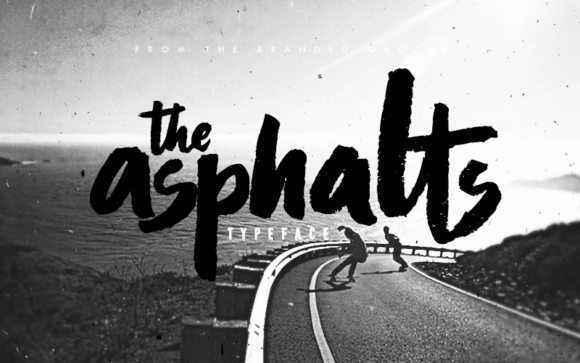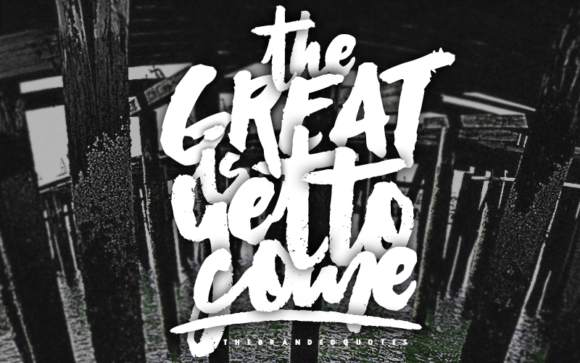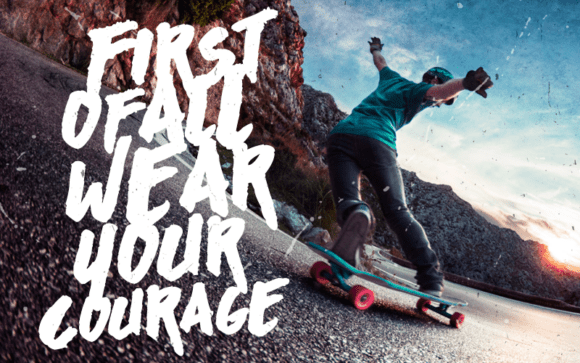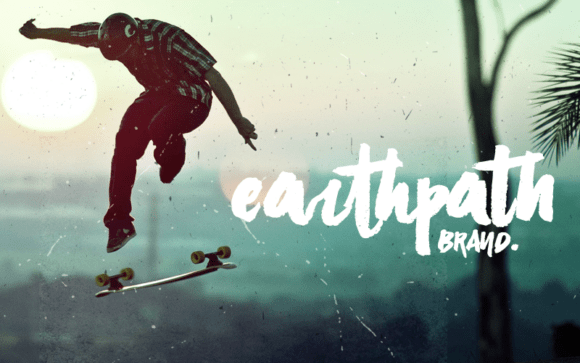
Asphalts Font
About the Asphalts Font
From logos to headlines, the Asphalts Font is the perfect choice for making a lasting impression. A mixture of rough and heavy brush strokes with a bit of easy-go-lucky script feel. Inspired by the steez of downhill passion that will uplift your brand name, logotype, identity, shirt design, and presentations. Think of a word and type it using the Asphalts Brush, then put the word “brand” or “SKATE CO.” under it in Sans Serif form. You will admire the uniqueness of this font!
Asphalts Font’s rugged, expressive character makes it ideal for headlines, short slogans, and branding elements where a bold, rebellious statement is desired. It works particularly well in applications like posters, skate deck graphics, and apparel designs. However, its heavy stroke weight and informal style make it unsuitable for body text or UI elements requiring high readability.
Consider pairing Asphalts with a clean sans-serif like Montserrat for a balanced contrast, or a geometric sans-serif such as Futura for a more modern feel. A simple serif typeface, such as Playfair Display, could also provide elegant counterpoint to its raw energy. These pairings provide legibility and sophistication to offset the font’s inherent roughness.
The overall personality of Asphalts is energetic and rebellious, conveying a sense of raw power and youthful dynamism. It is perfect for brands that wish to project a street-smart, action-oriented image.
Asphalts Font Usage Examples
Asphalts Font Example